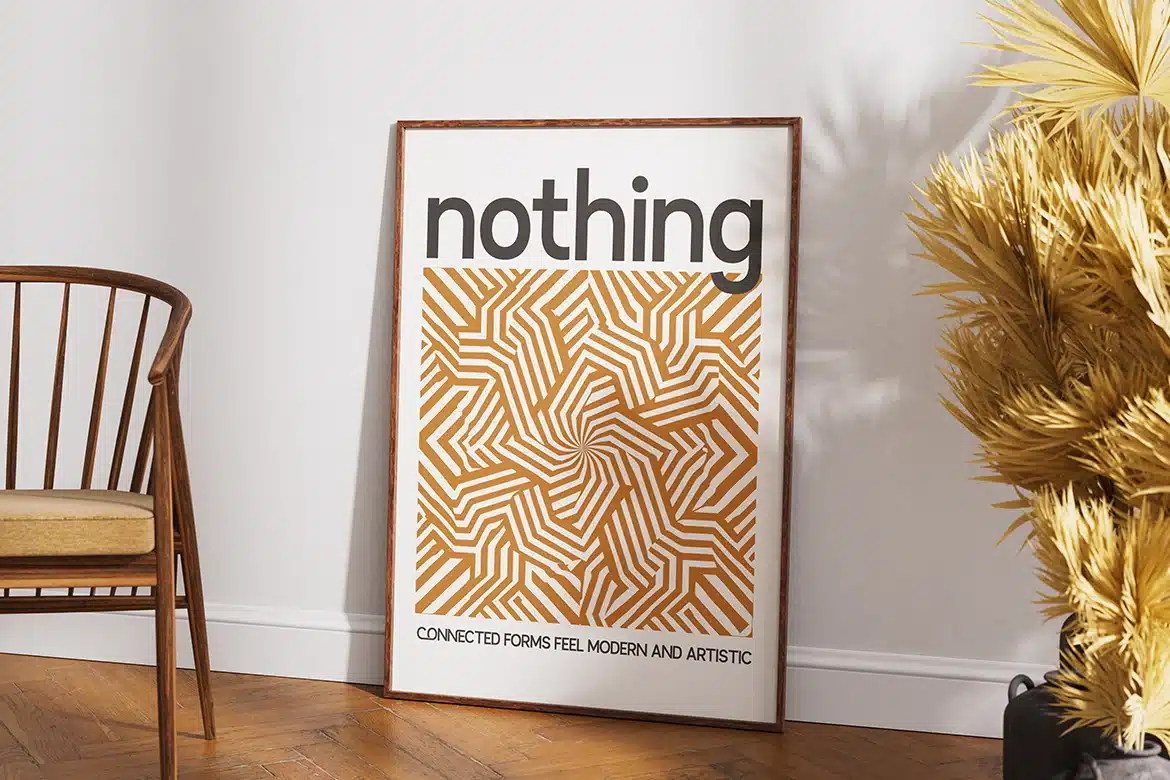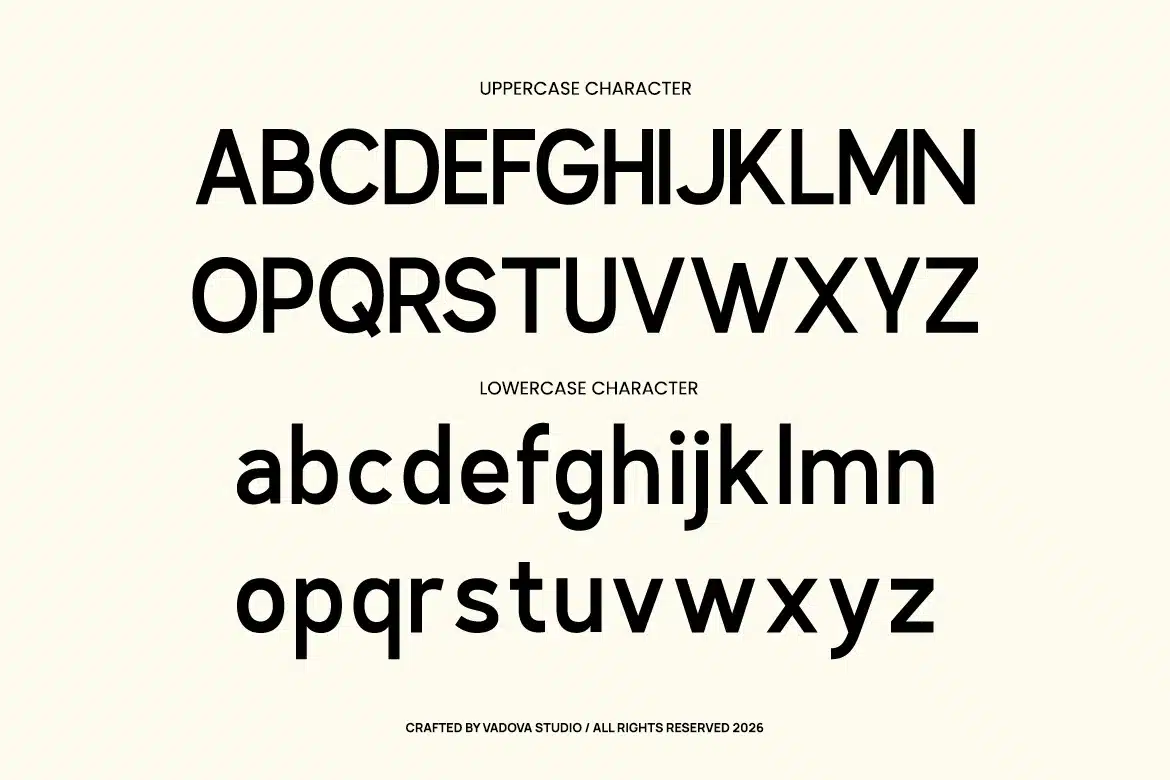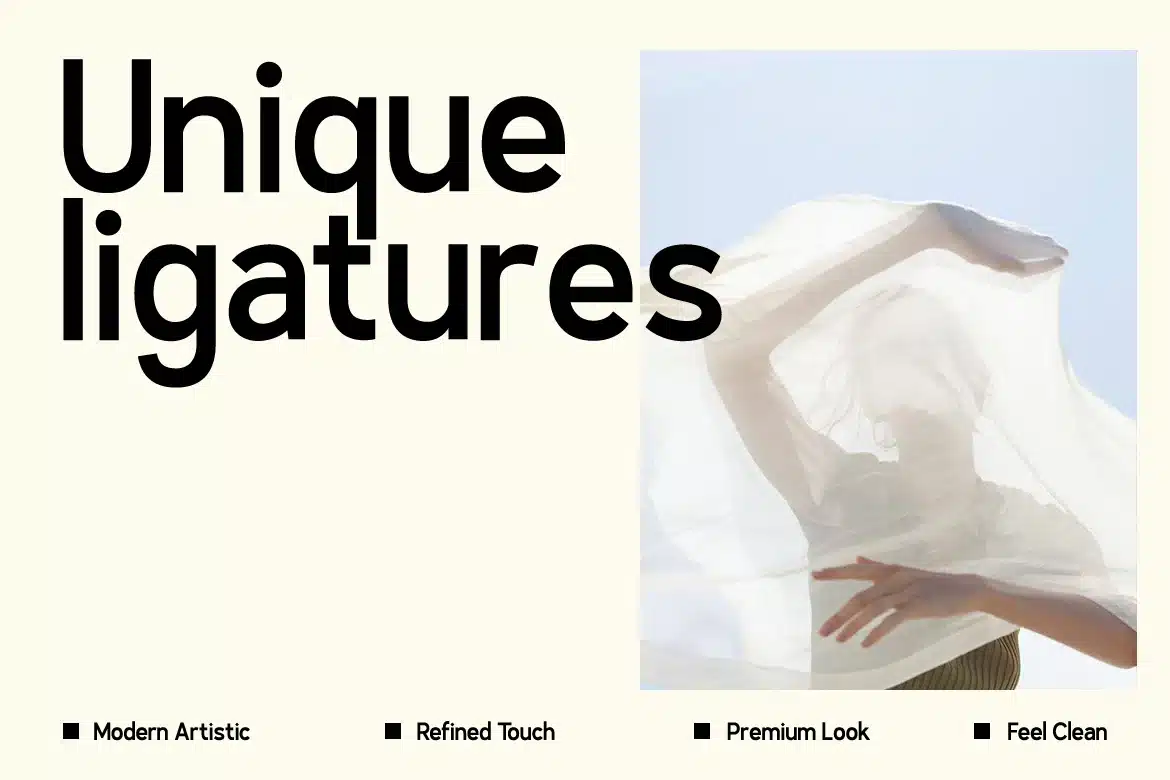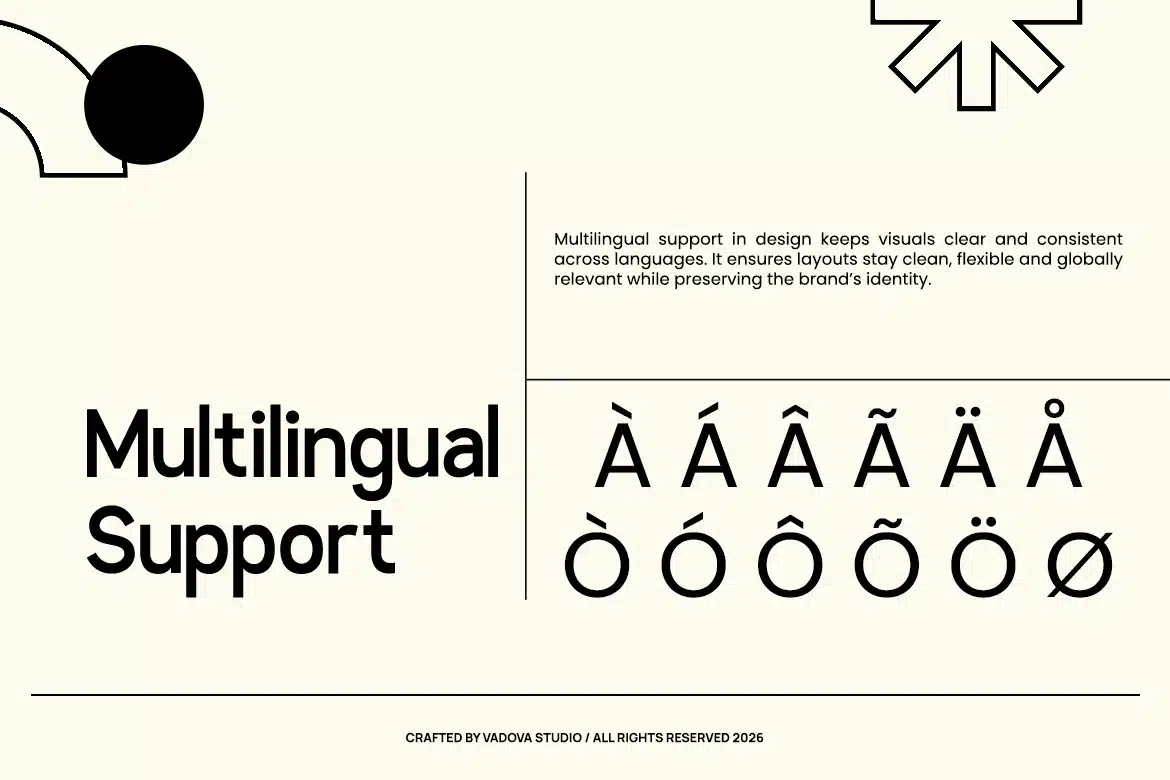
Neuria Modern Clean Sans Serif Font
Neuria is a modern clean sans serif typeface designed with precision, clarity, and strong visual impact. This typeface features a minimalist structure with smooth curves and sharp edges, making it highly versatile for both digital and print applications. The font includes uppercase and lowercase characters, numerals, punctuation, ensuring flexibility for multilingual and professional use. Its balanced proportions and geometric influence make it perfect for contemporary design needs.
Relevance and Use Case modern design projects that demand clarity and sophistication. It works perfectly for branding, logo design, website UI/UX, social media graphics, editorial layouts, and corporate identity systems. Its clean and neutral appearance makes it adaptable across industries such as technology, fashion, startups, and creative agencies.
Main Features
- Uppercase & Lowercase characters
- Numeral & Punctuations